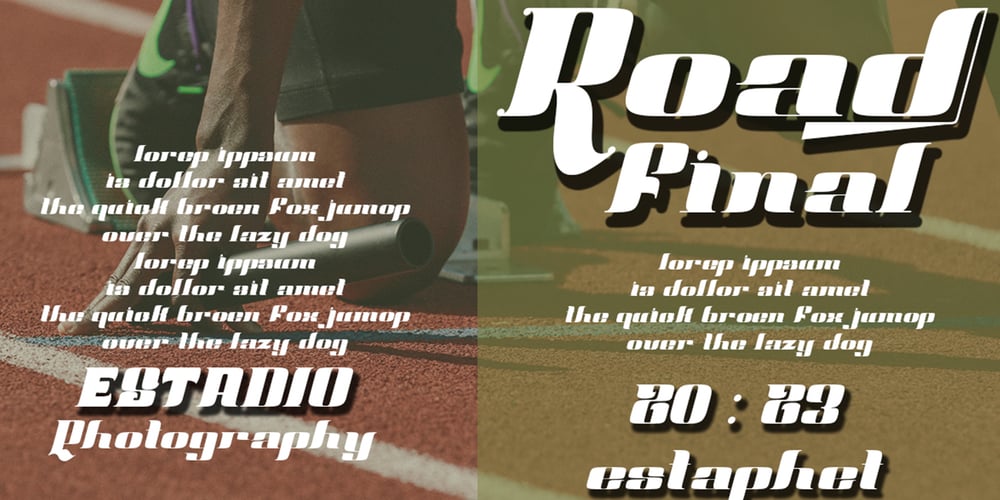
Comfort Font Family was designed by Ibram Syah and published by Jehansyah. Comfort contains 2 styles and family package options. short and bold font, cute and looks professionaland a nuanced logo font that you can customize with the elegant look you wantthere are several alternatives that you can use and combine, and there are italics to make it easier for you to work on your design project